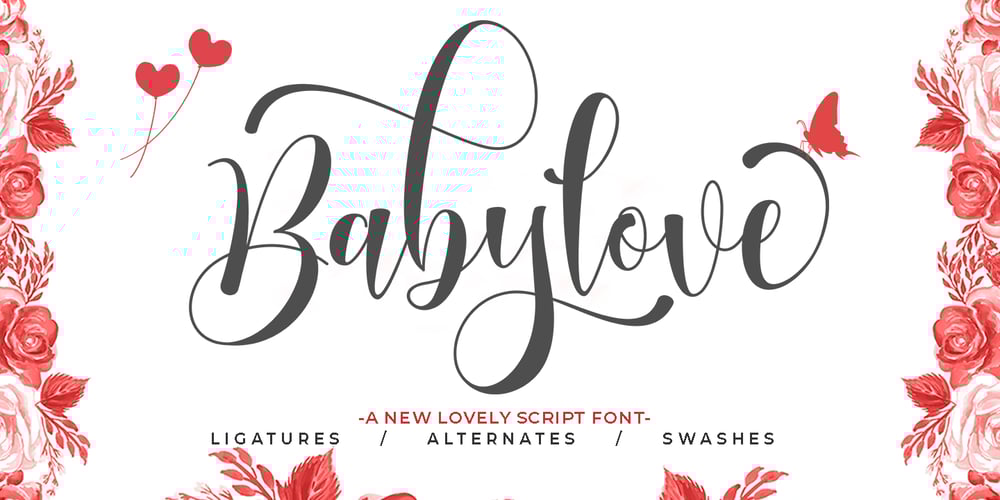
Babylove Font Family was designed by Arif Gunawan and published by Natural Ink. Babylove contains 1 styles and family package options. Babylove Script is a modern calligraphy design. This font is casual and beautiful with swash. It can be used for various purposes such as logos, product packaging, wedding invitations, branding, headlines, signage, labels, signatures, book covers, posters, quotes, and more.Babylove Script includes a change in the OpenType language style, with ligatures and international support for most Western languages. To activate the OpenType Stylistic alternative, you need a program that supports OpenType features such as Adobe Illustrator CS, Adobe Indesign & CorelDraw X6-X7, Microsoft Word 2010 or newer versions. How to access all alternative characters using Adobe Illustrator:https://www.youtube.com/watch?v=XzwjMkbB-wQBabylove Script is coded with PUA Unicode, which allows full access to all additional characters without having to design special software. Mac users can use the Font Book, and Windows users can use Character Map to view and copy one of the additional characters to insert into your favorite text editor / application. How to access all alternative characters, using Windows Character Map with Photoshop:https://www.youtube.com/watch?v=Go9vacoYmBwIf you need help or have questions, please let me know. I am happy to help.